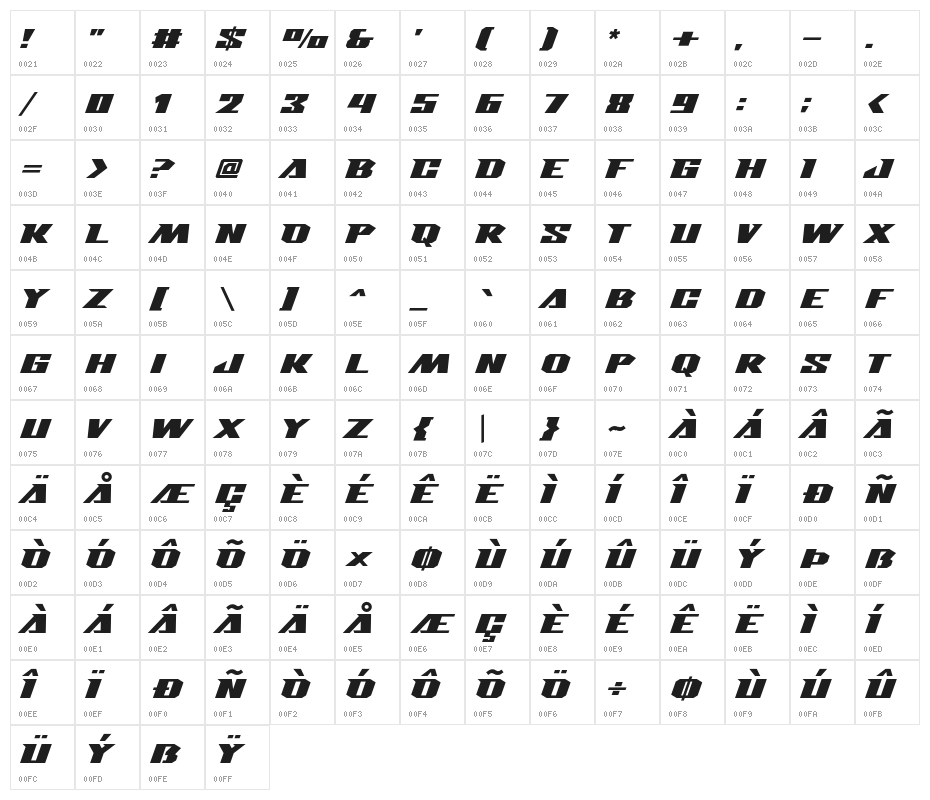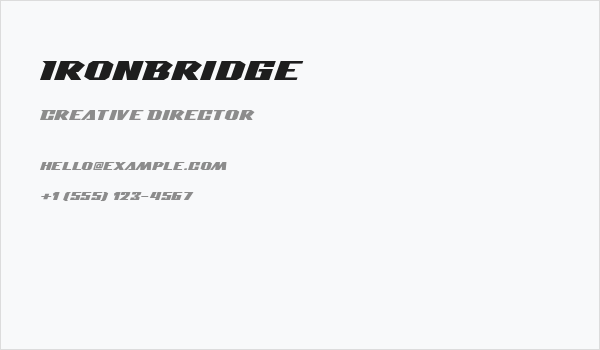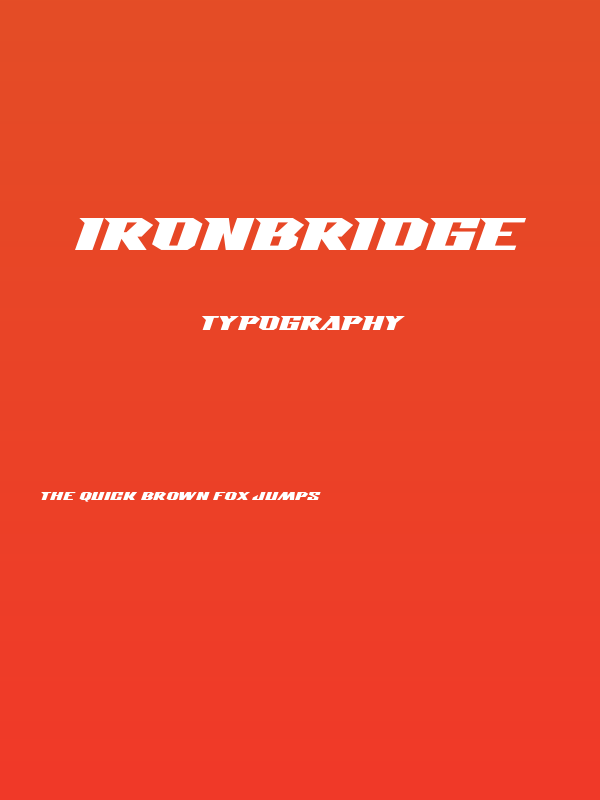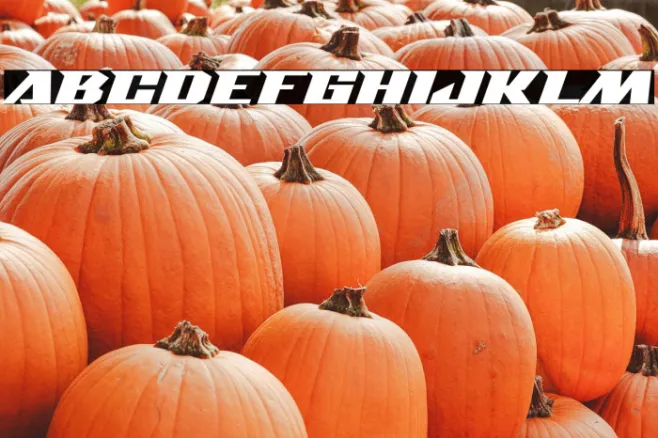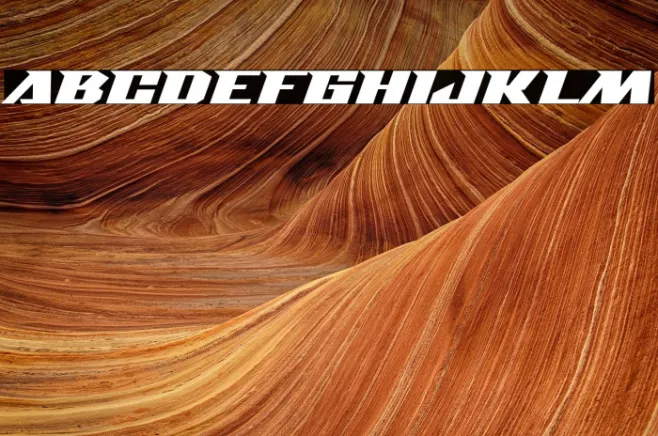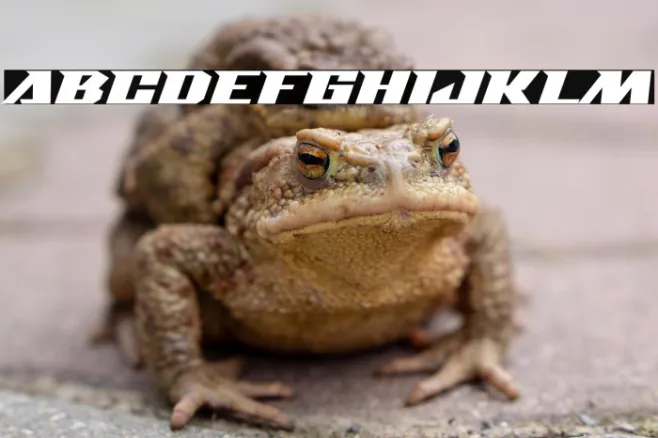
IronBridge Font
IronBridge Description
This font features a bold and dynamic design with sharp, angular edges and a strong presence. The letters are slanted, giving a sense of movement and energy, reminiscent of industrial or sports themes. The uppercase and lowercase characters maintain a consistent style, with a slight italic slant that enhances the aggressive and modern look. The numerals and special characters follow the same design principles, ensuring uniformity across all glyphs. This font is ideal for projects that require a bold statement or a futuristic aesthetic.
| Proposed Projects | Ideal for sports branding, industrial-themed designs, posters, and dynamic logos. |